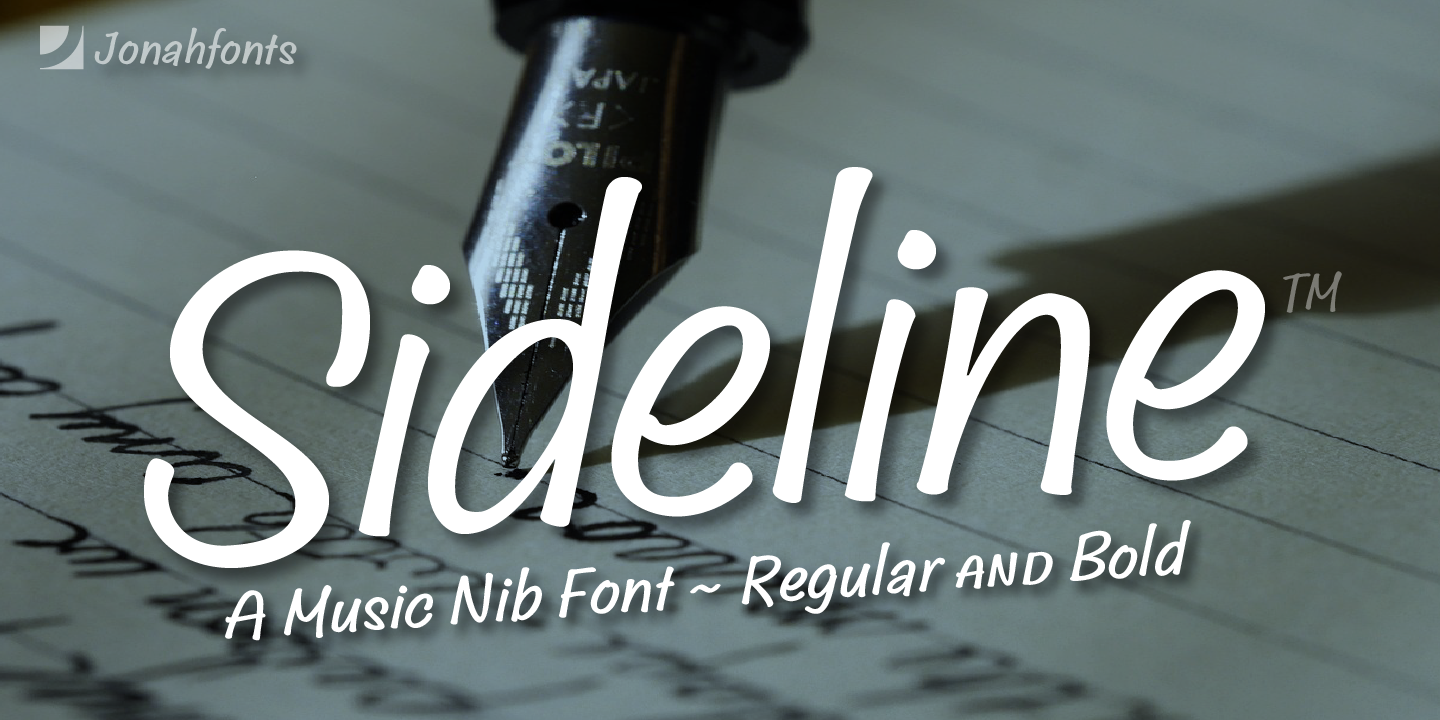
Sideline Font is perfect for sports team branding, athletic apparel designs, sports commentary publications, coaching materials, sports journalism, athletic training programs, sports bar signage, team merchandise, sports broadcasting graphics, athletic event promotions, sports equipment packaging, and professional sports industry communications.
This font is exciting because it captures the strategic intensity and observational precision of being on the sidelines where coaches make game-changing decisions and sports analysts witness history in the making, featuring boldly authoritative letterforms that communicate with the same tactical intelligence and competitive awareness found in championship coaches who see every play develop and understand the split-second decisions that separate victory from defeat. The strategically crafted character design embodies both the professional expertise of sports analysis and the passionate intensity of athletic competition, creating typography that feels both knowledgeably authoritative and athletically powerful. Each letter demonstrates the kind of strategic thinking and competitive insight that transforms ordinary text into expert commentary worthy of championship-level sports and professional athletic achievement.
The Sideline Font family includes regular and bold weights with complete character sets featuring sports-inspired numerals, athletic punctuation marks, and decorative elements reminiscent of scoreboards, team jerseys, playbook diagrams, and professional sports graphics. Advanced versions may offer additional stylistic variants with enhanced sports effects, alternate characters that create team-like connections, and athletic ornaments that celebrate the strategy, passion, and professionalism of competitive sports culture.
Whether you're developing sports team branding, creating athletic marketing materials, or designing professional sports content, Sideline Font Free Download provides the strategic authority and athletic credibility your project needs to communicate effectively within the competitive world of professional sports and athletic achievement. This typeface transforms ordinary text into expert sports communications that carry the weight of professional analysis and the excitement of competitive athletics. The font's athletic character makes it essential for organizations and brands operating within the sports industry. Sports professionals and athletic marketers will appreciate how this font brings authentic sideline expertise to their work with its genuinely strategic and professionally athletic character that understands the game.